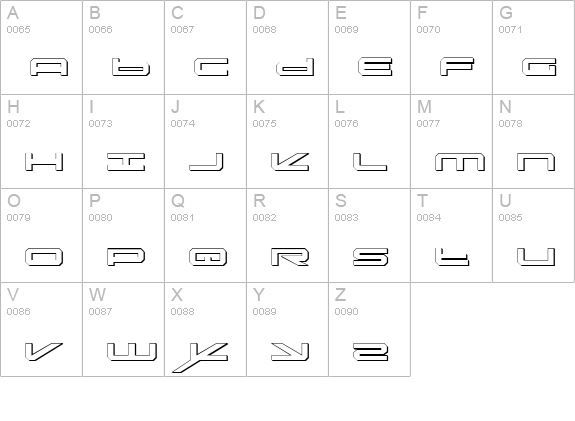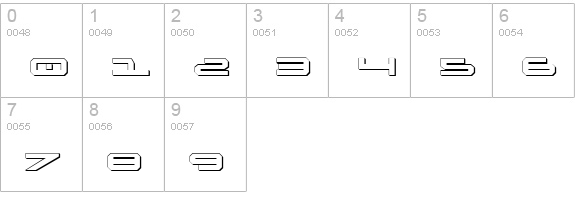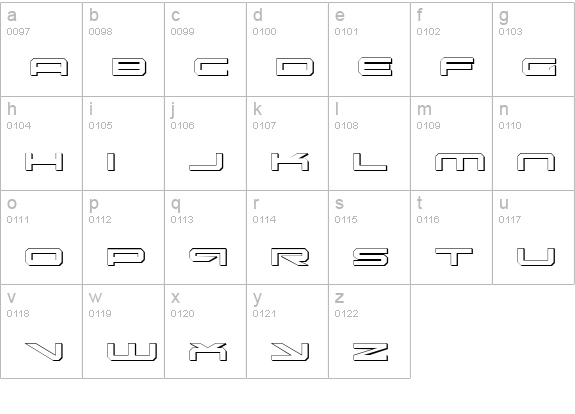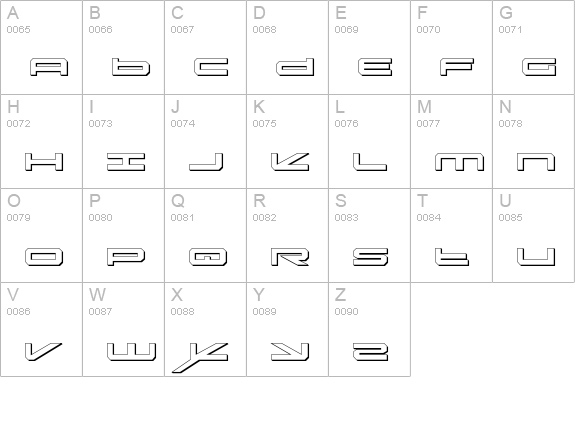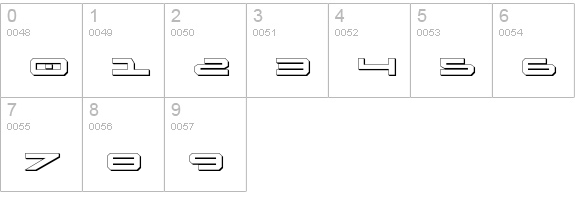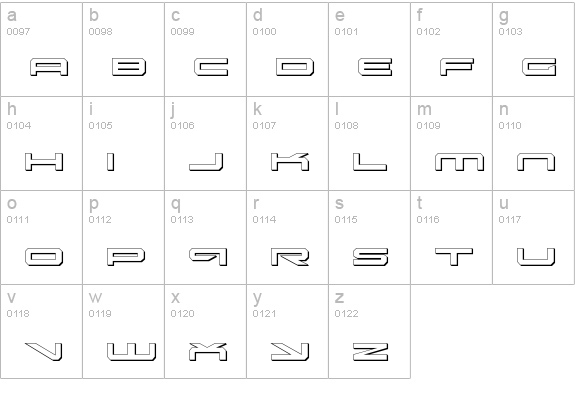
Oramac Shadow Font Details
Oramac Shadow font is a striking display typeface that commands attention with its bold and unique design. The distinctive shadow effect adds depth and dimension to each character, making it a perfect choice for headlines, posters, and other eye-catching designs. The font exudes a sense of mystery and sophistication, making it ideal for projects that require a touch of intrigue. Best of all, Oramac Shadow font is available for free download at FontsMarket.com. This means you can easily add this stylish typeface to your collection without breaking the bank. Don't miss out on the opportunity to enhance your designs with the captivating Oramac Shadow font – download it today and take your projects to the next level!